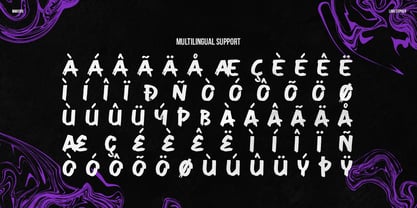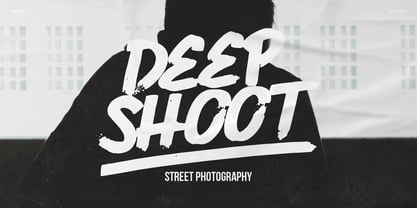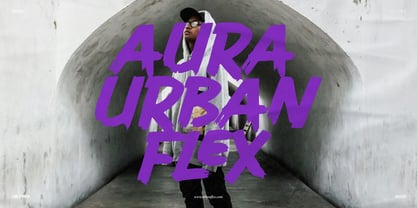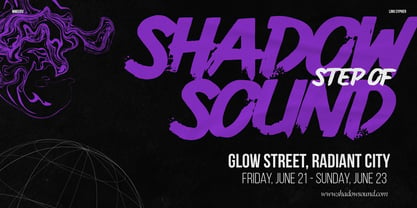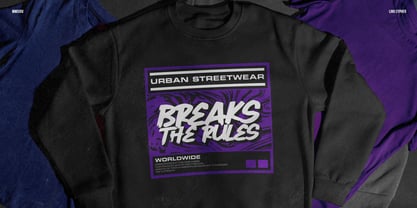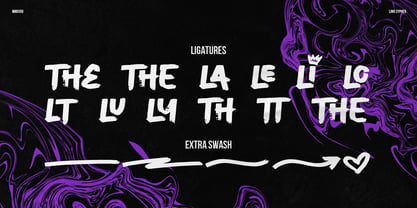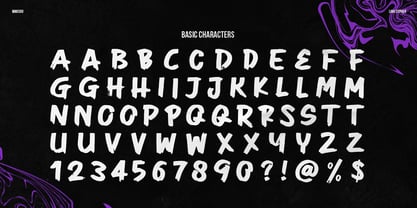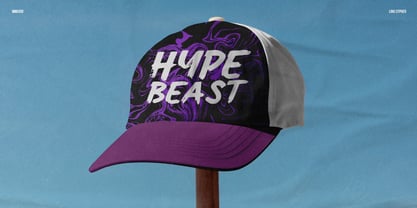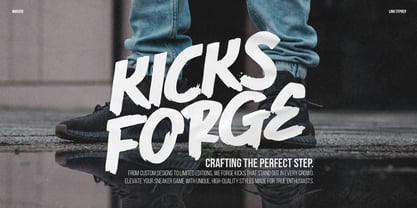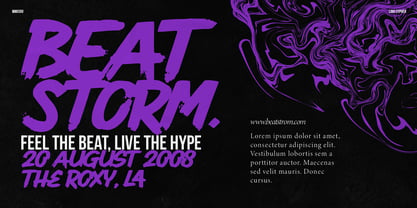
Link Cypher
por Denustudio
La familia tipográfica Link Cypher fue diseñada por Dede Nugraha y publicada por Denustudio. Link Cypher contiene 2 estilos y opciones de paquete familiar. Más información sobre esta familia
Link Cypher | All Caps Marker Font, from Denustudios, suitable for any projects such as: logos, branding projects, homeware designs, product packaging, mugs, quotes, posters, shopping bags, t-shirts, book covers, name card, invitation cards, greeting cards, label, photography, watermark, special events, and all your other lovely projects that need a All Caps Marker Font taste.
• Regular and Italic
• Alternate and Ligature